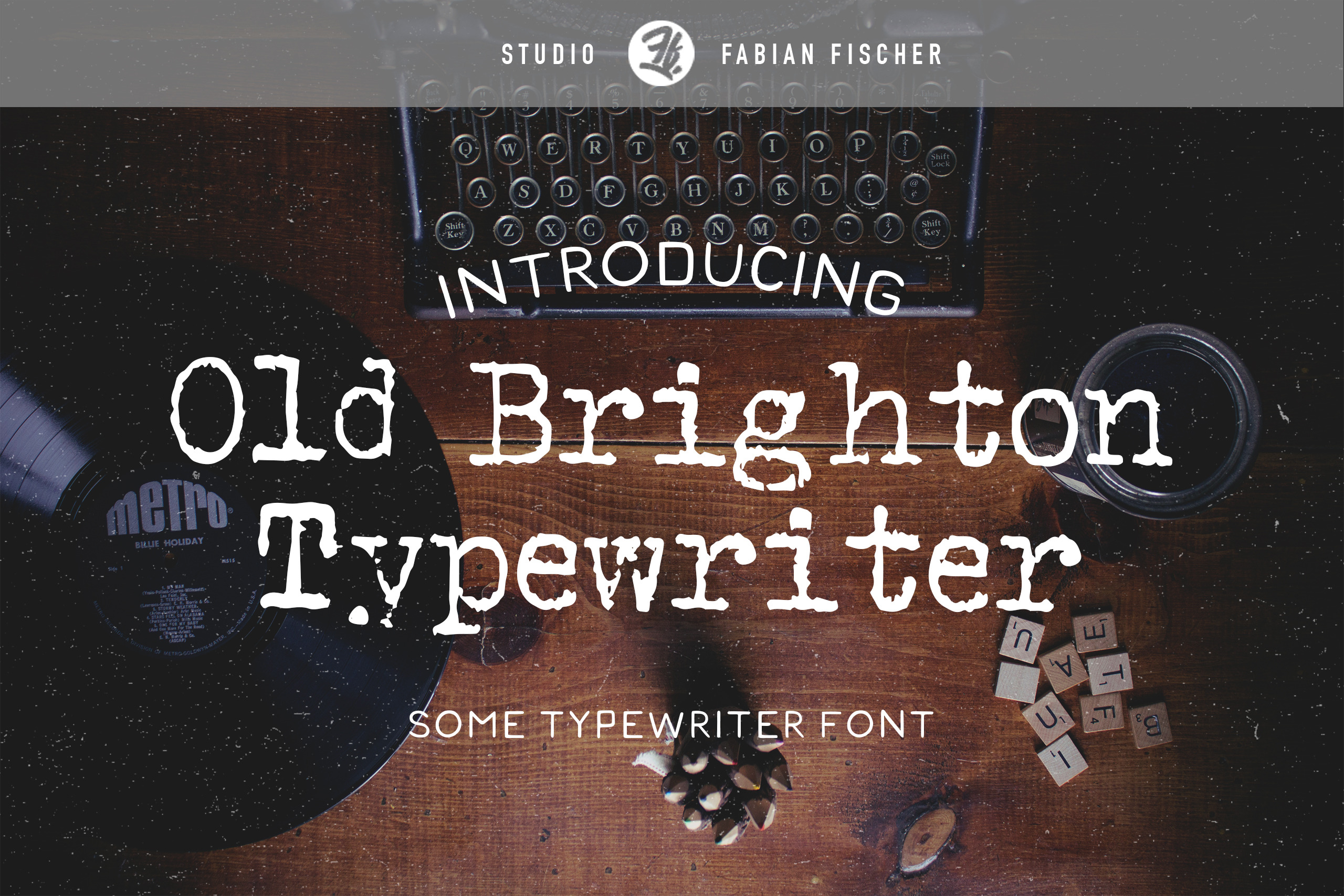
Old Brighton Typewriter - Font
"Old Brighton Typewriter" is a simple font that was generated out of typed letters with an old and dusty typewriter I found at my parents home. You all know this vintage typewriters and their typical "tack" "tack" "tack". This font will give you this feeling back to your computer even without the "tack".
Typed are the uppercase, lowercase and special letters for a fancy handcrafted look. It works good for rustic or vintage style work. Great for getting that handcrafted look you've been looking for!